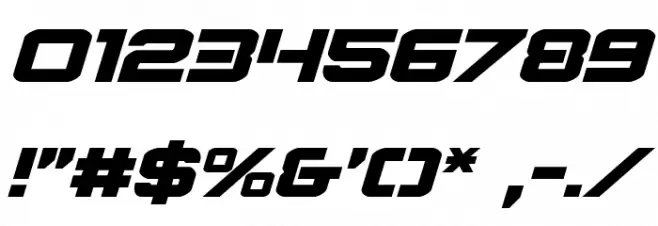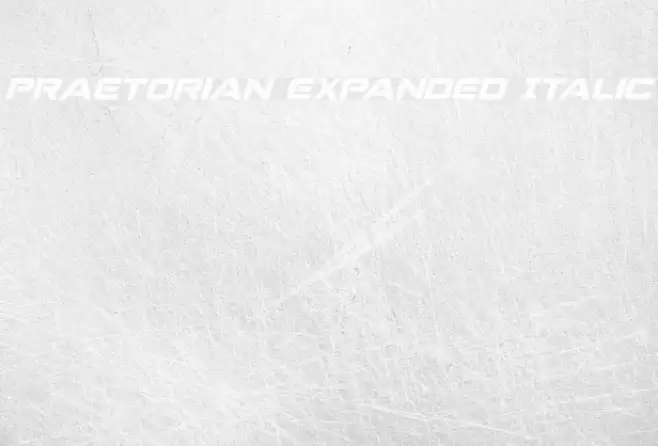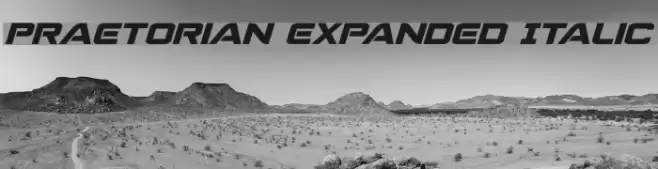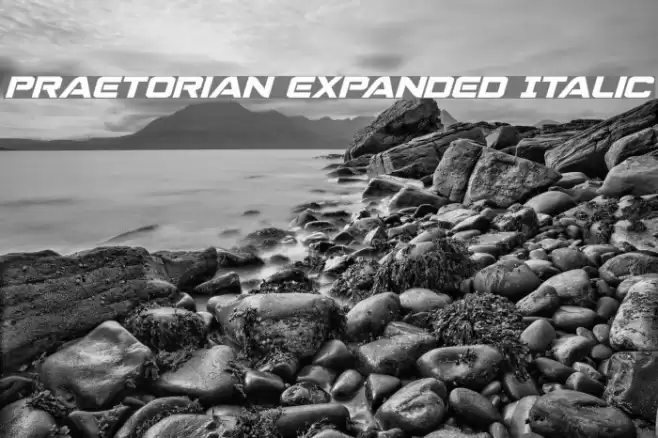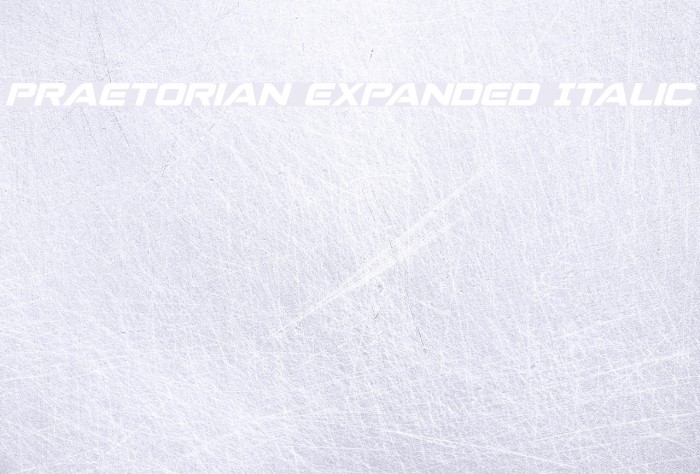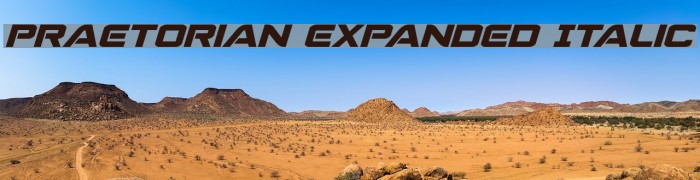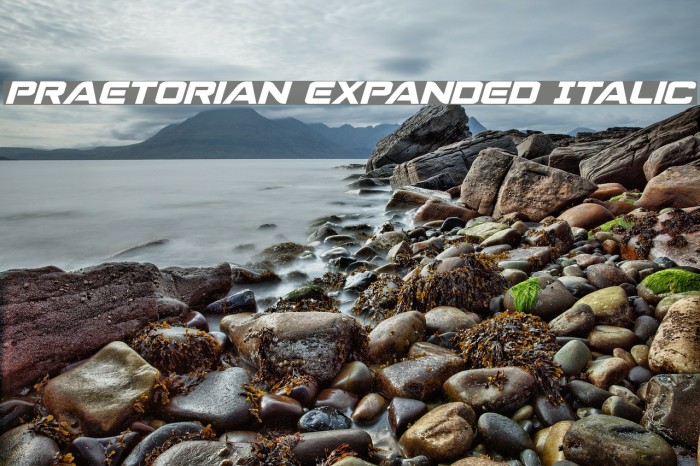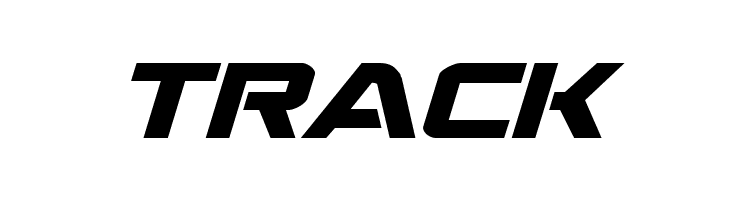
Praetorian Expanded Italic
This font features a bold and dynamic style with an italic slant, giving it a sense of motion and energy. The characters are expanded, providing a wide stance that enhances readability while maintaining a strong visual impact. The strokes are consistent in weight, offering a uniform appearance across all characters. Its geometric shapes and sharp angles contribute to a modern and futuristic aesthetic, making it suitable for projects that require a contemporary and assertive look. The font includes a full set of uppercase and lowercase letters, numbers, and a variety of special characters, ensuring versatility in design applications.
A bold, expanded italic font with a modern and dynamic style.
- Proposed Projects: Ideal for branding, sports team logos, technology-related designs, and dynamic posters.
- Width: Expanded
- Use Case: Logos, Headlines, Posters